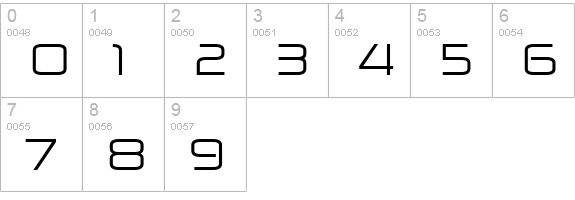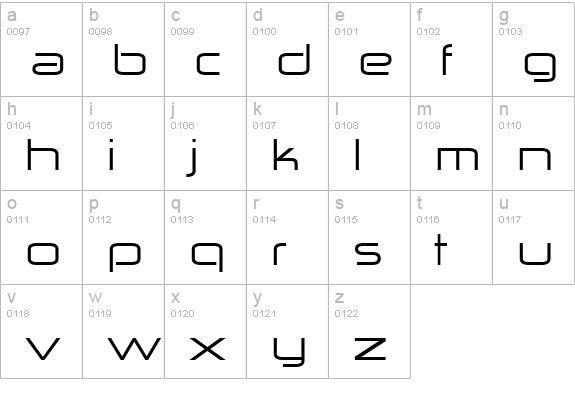
Zekton Ex Font Details
Zekton Ex font is a modern and sleek typeface that exudes a sense of strength and sophistication. With its clean lines and sharp angles, this font is perfect for creating bold and impactful designs. Whether you're working on a poster, logo, or website, Zekton Ex will make your text stand out. What makes Zekton Ex font even more appealing is that it is available for free download at FontsMarket.com. This means that you can enjoy all the benefits of this stylish font without having to spend a dime. Don't miss out on the opportunity to elevate your projects with Zekton Ex font - download it for free today!